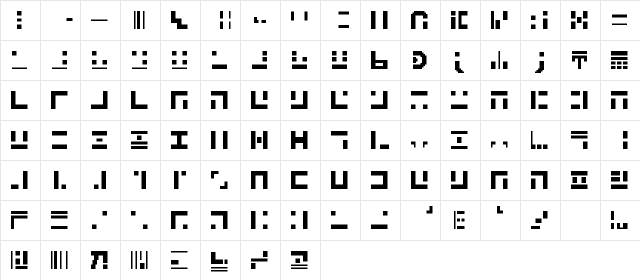
alphax Medium
Design Context for alphax Typeface
alphax takes a measured approach to typography — its balanced proportions and neutral character make it a reliable workhorse for both digital and print work.